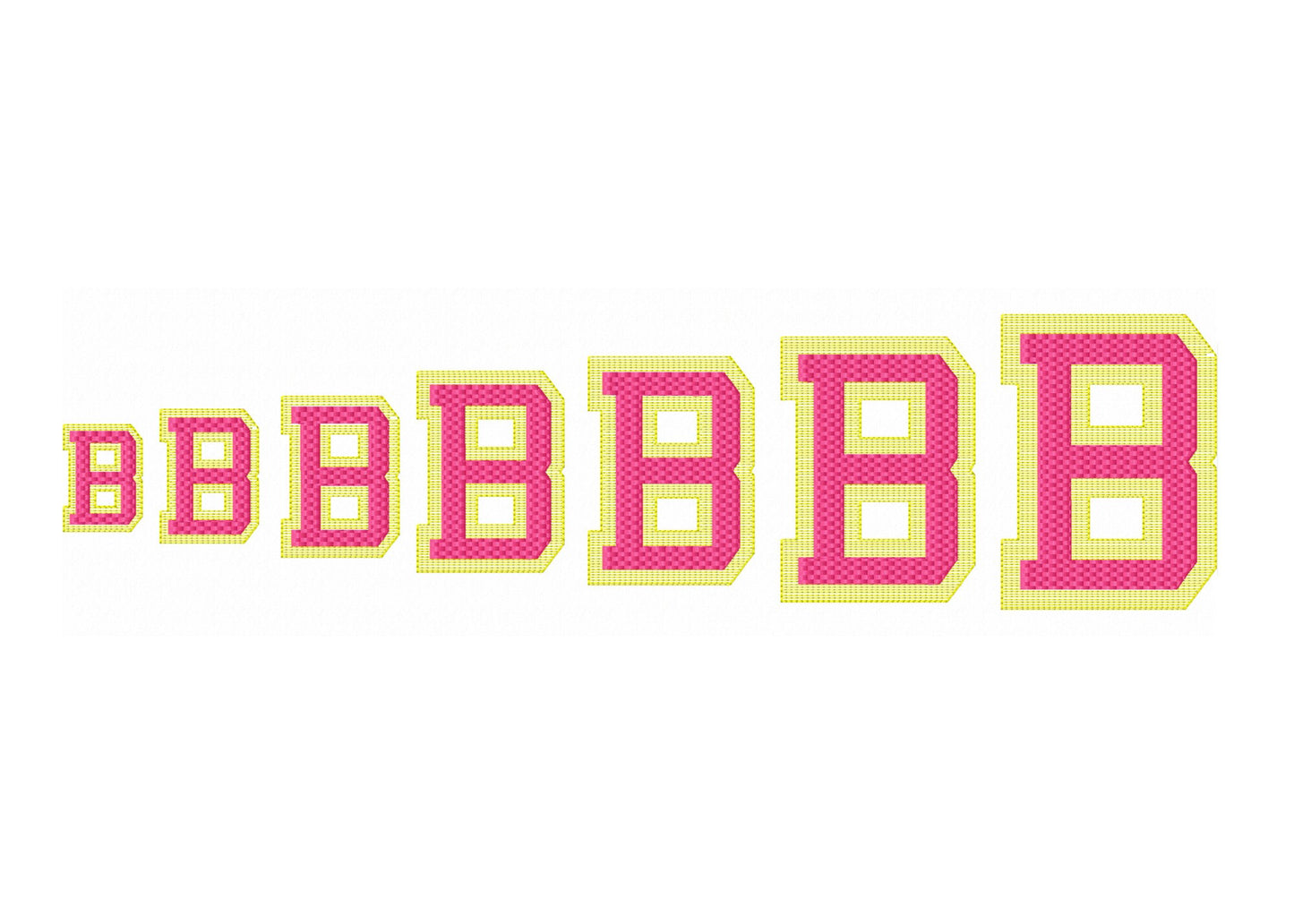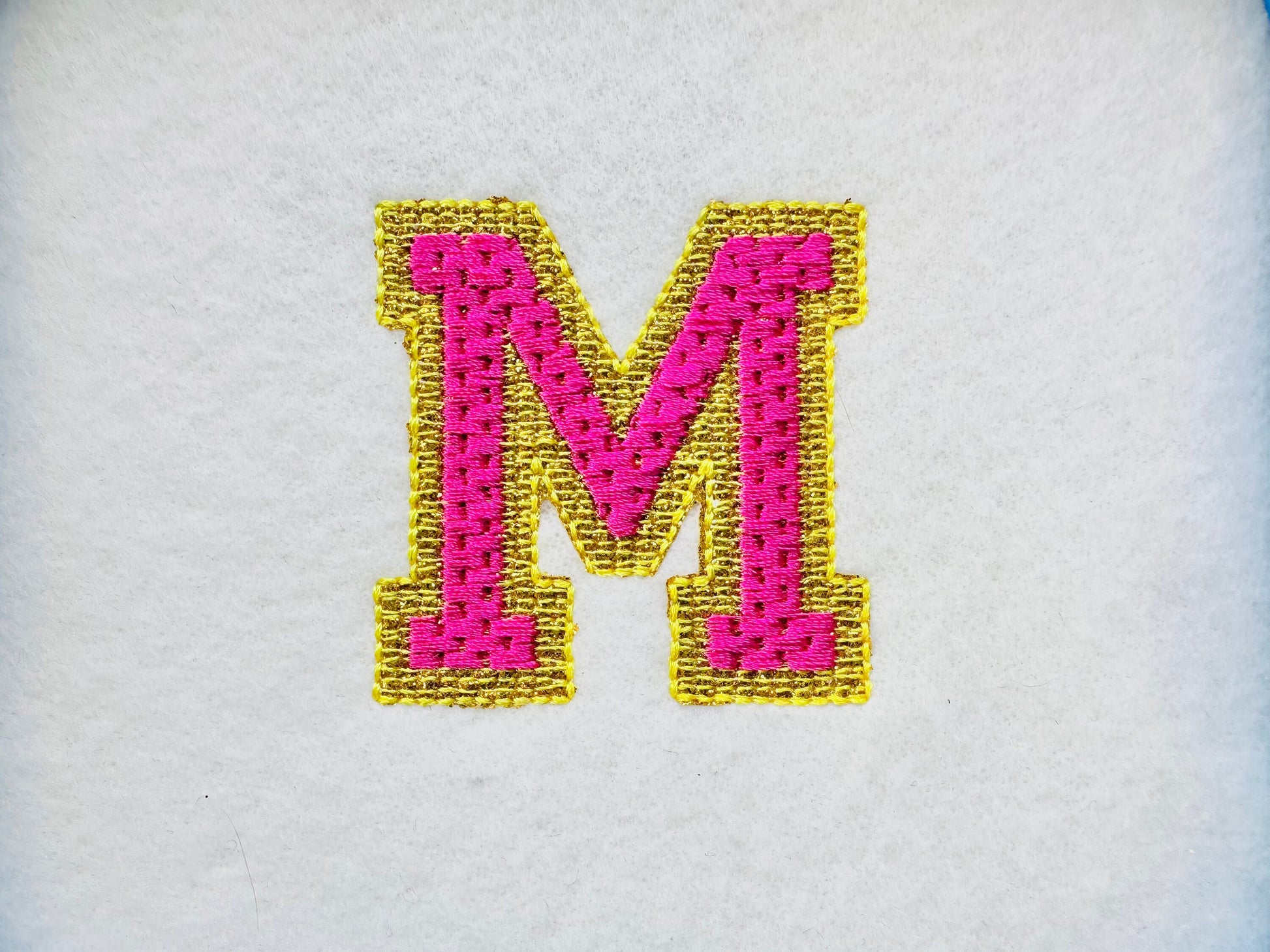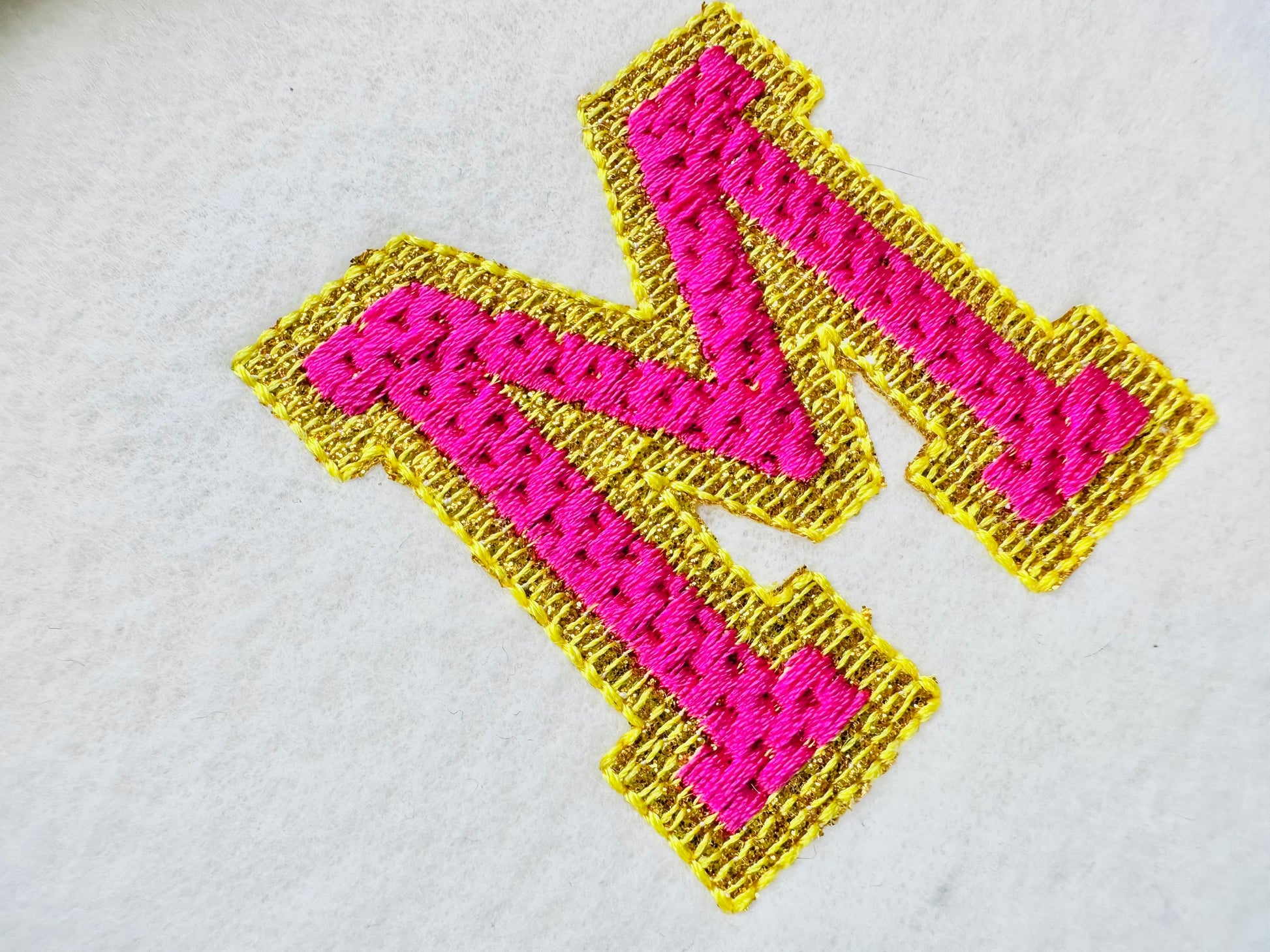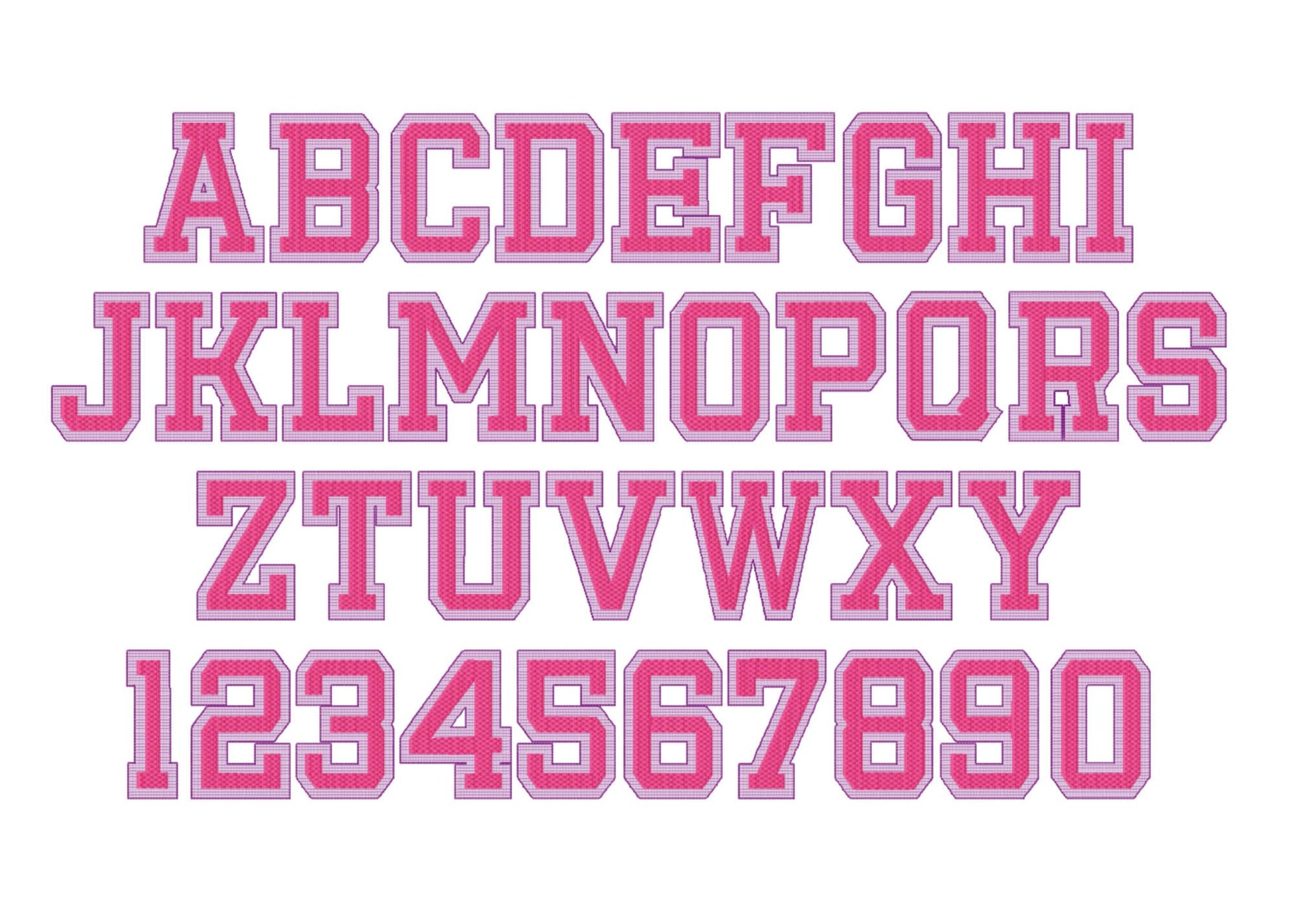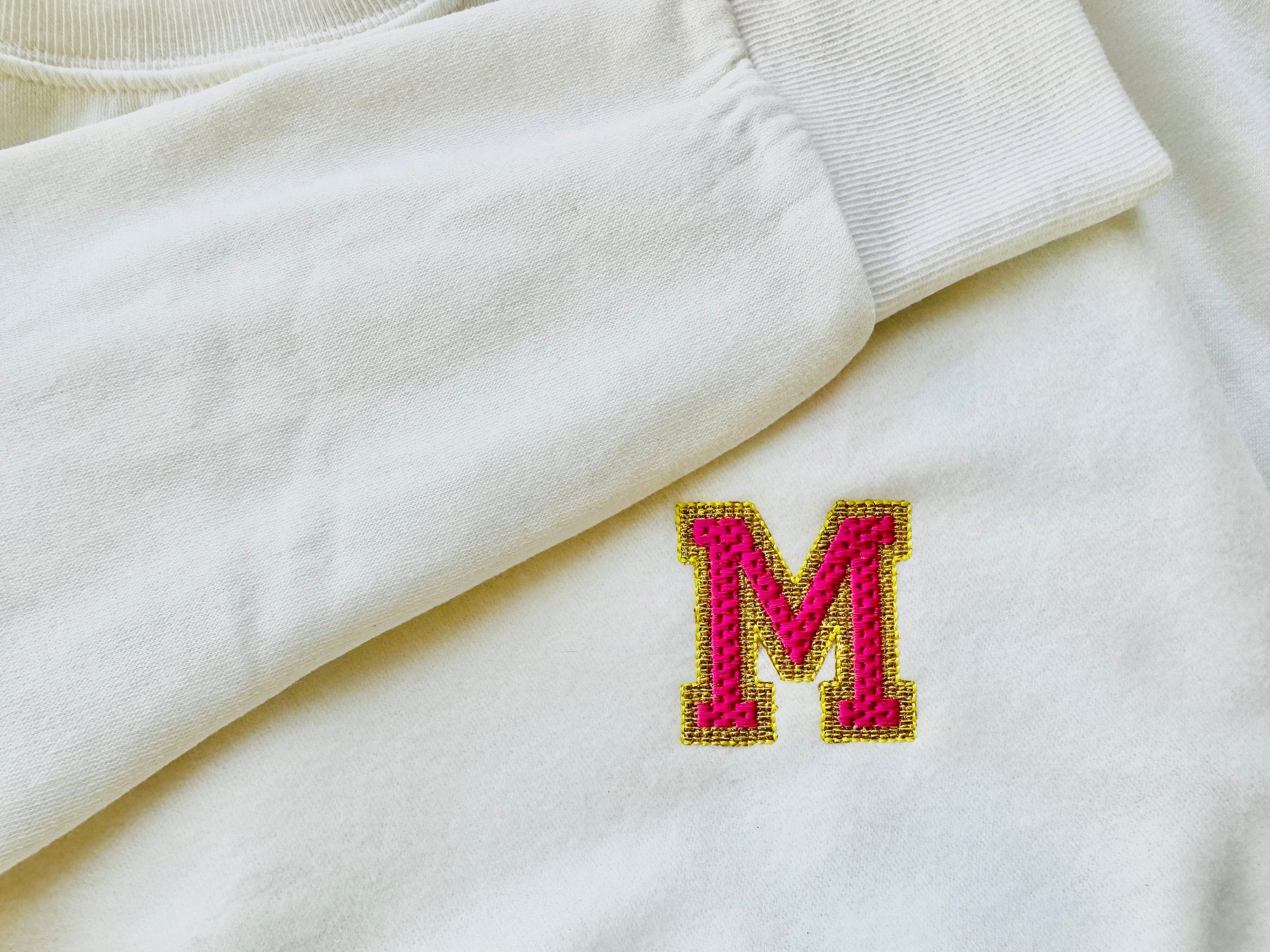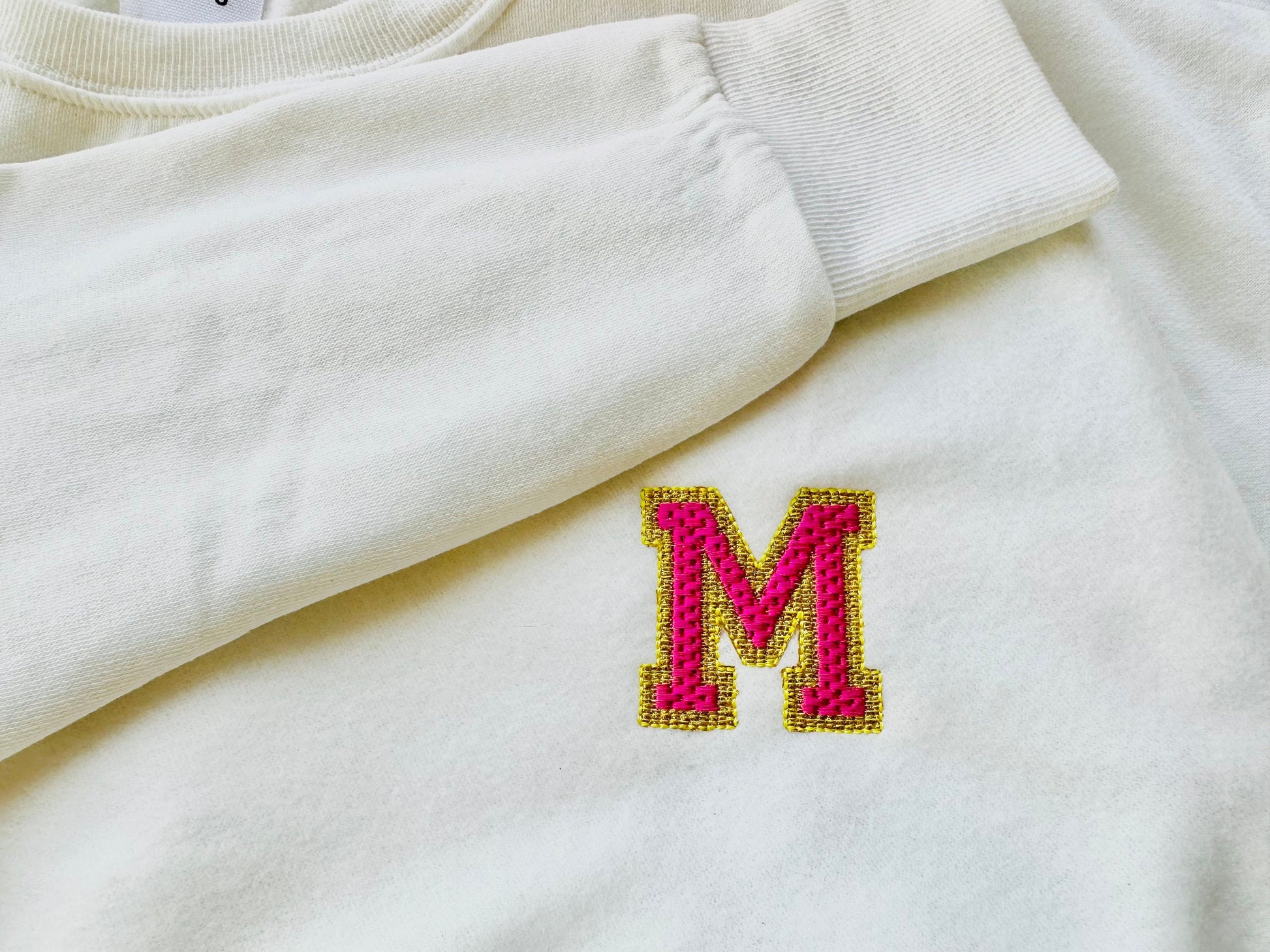
Or click to open the linkA waffle-pattern varsity font for glitter vinyl and HTV, for team names and numbers on shirts, hoodies and caps.
The glitter vinyl sits under a waffle stitch pattern; tear or trim it along the edges. Uppercase A to Z and numbers 0 to 9 in seven sizes: 1.5, 2, 2.5, 3, 3.5, 4 and 4.5 inches.